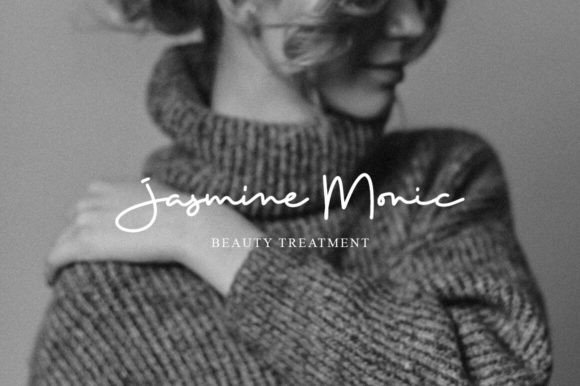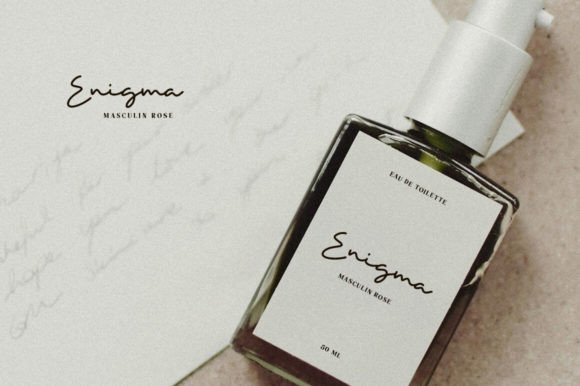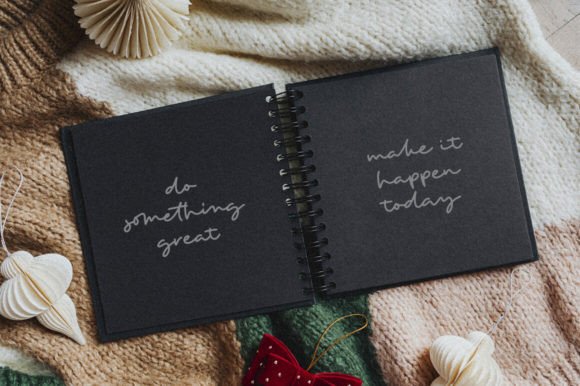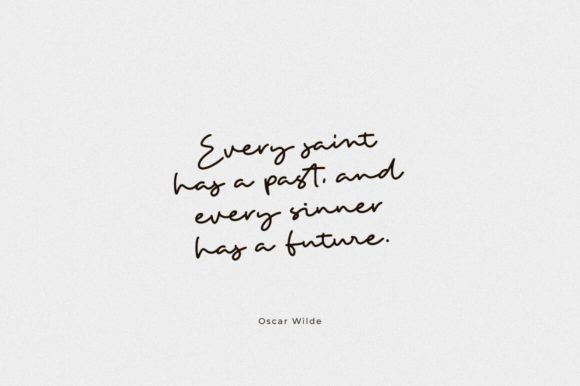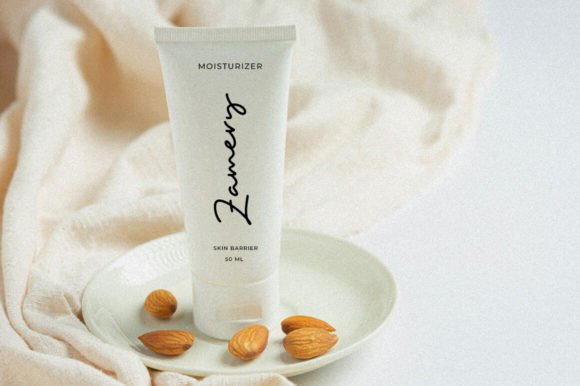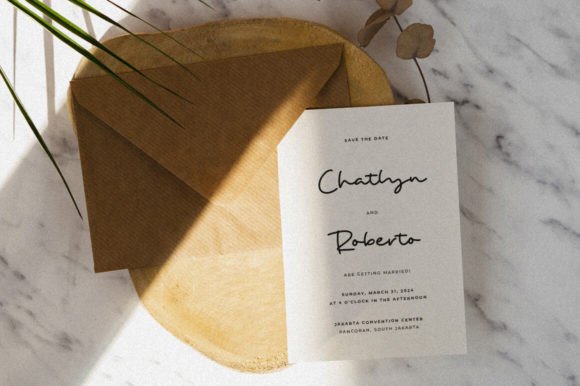
Introduction to Only Youth Font
Have you ever stumbled upon a design resource that instantly sparks your creativity? For many designers, that moment comes when they discover a font that perfectly captures the essence of their vision. For us, that moment came when we found the Only Youth Font – a stunning handwritten font that adds a touch of elegance to any design.
This high-quality font is not just a pretty face; it’s a valuable addition to any designer’s toolkit. With its refined touch and timeless style, Only Youth Font is perfect for designers looking to create unique and captivating designs. Whether you’re working on a creative project that requires a touch of whimsy or a professional design that demands sophistication, this font is sure to impress.
Key Features of Only Youth Font
- Features a unique, modern design perfect for targeting the younger demographic in advertising and marketing campaigns.
Honest Review: Only Youth Font
The font itself has a unique, youthful vibe that’s perfect for projects that require a touch of whimsy. It features a transparent background, which makes it super versatile and easy to work with.
- Its playful, cursive script that adds a personal touch to any design
- Its high level of customization options, making it perfect for branding and marketing materials
- Its seamless integration with other design elements, thanks to its transparent background
While the Only Youth Font is a great addition to any design arsenal, there are a few limitations to be aware of: ⚠️
- Its limited character set, which may require some additional font pairing for more complex projects
Overall, I’m impressed with the Only Youth Font and would definitely recommend it to fellow designers. Its unique style and high-quality design make it a valuable resource for any creative project.
Tips for Getting the Most Out of Only Youth Font
To get the most out of the Only Youth Font, use it in combination with other design elements to create visually appealing and unique designs. Experiment with different font sizes, colors, and styles to enhance the impact of your project.
The Only Youth Font is ideal for creative projects such as social media graphics, blog posts, and marketing materials. Its unique design and high-quality characteristics make it perfect for grabbing attention and conveying a message effectively.
Q: Is the Only Youth Font suitable for high-resolution designs?